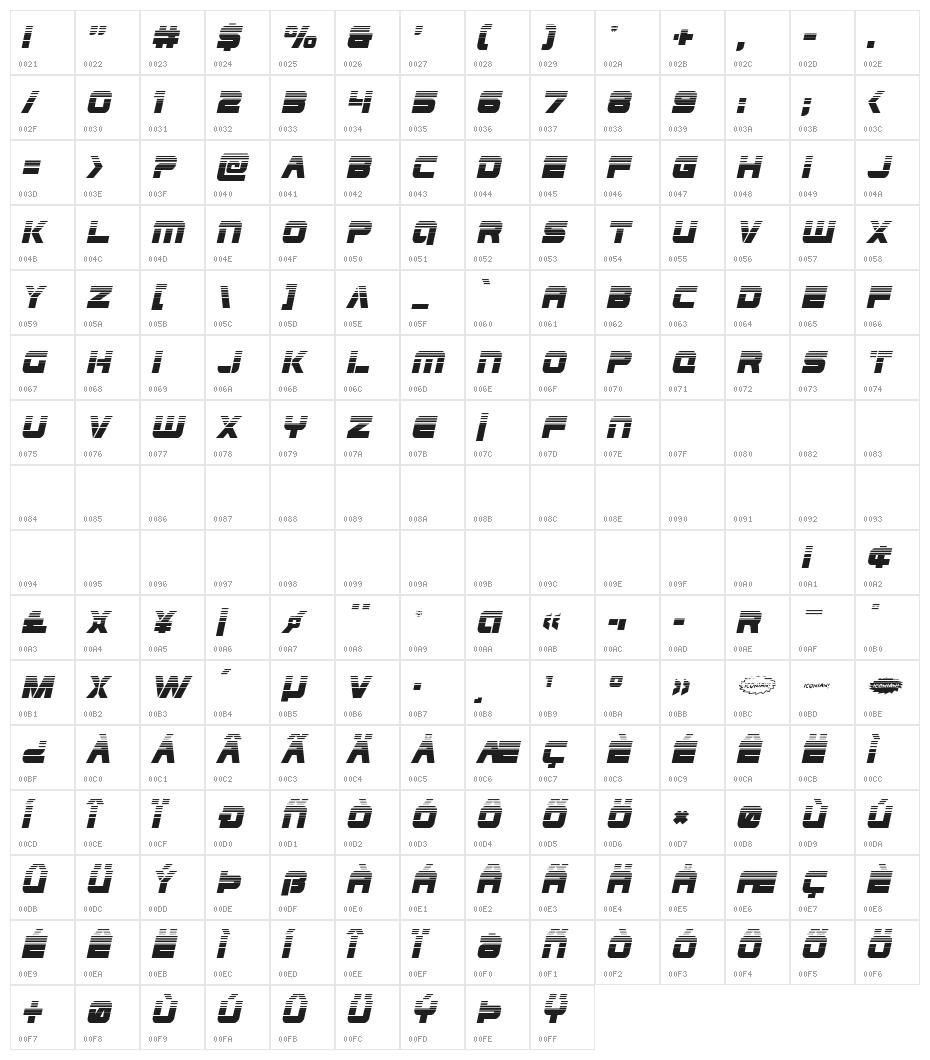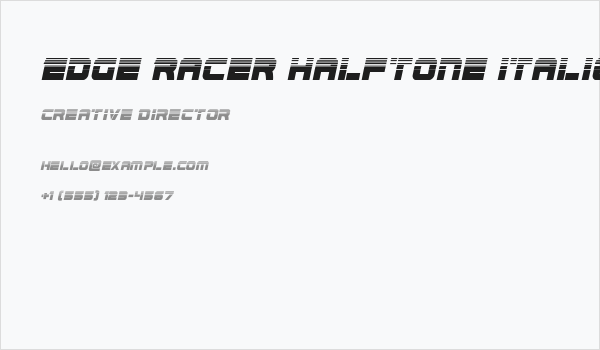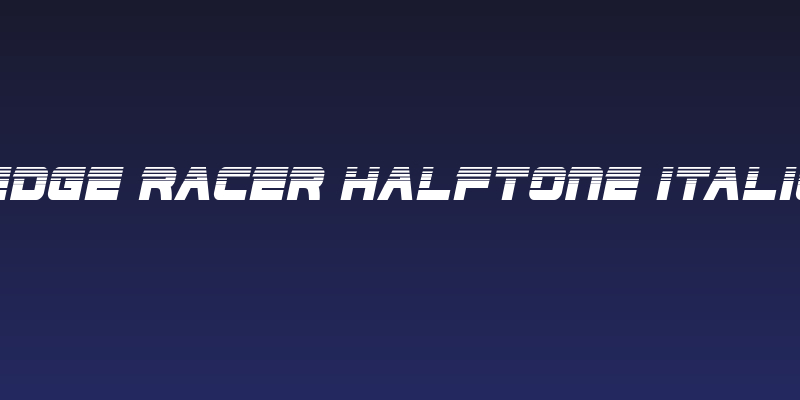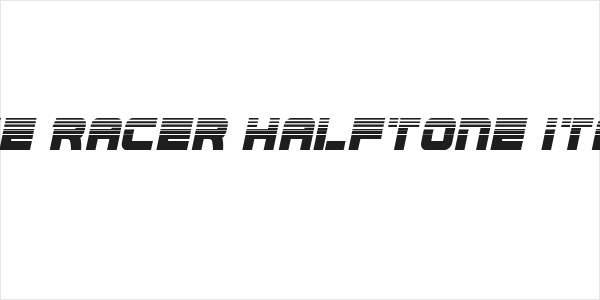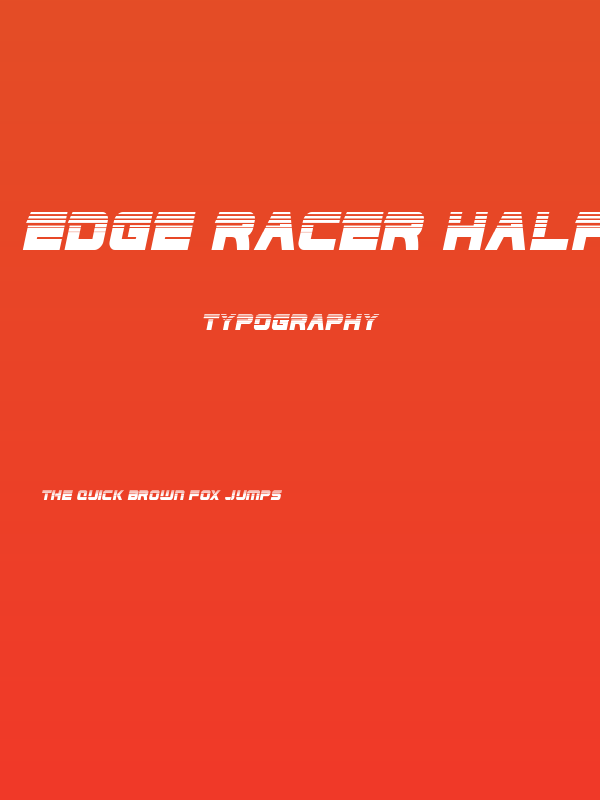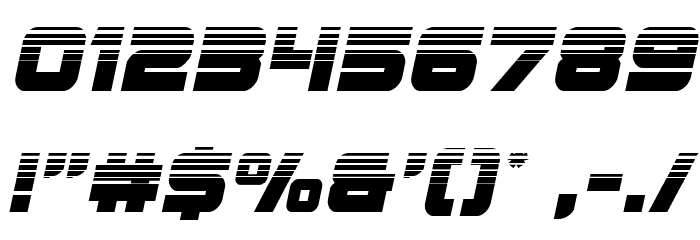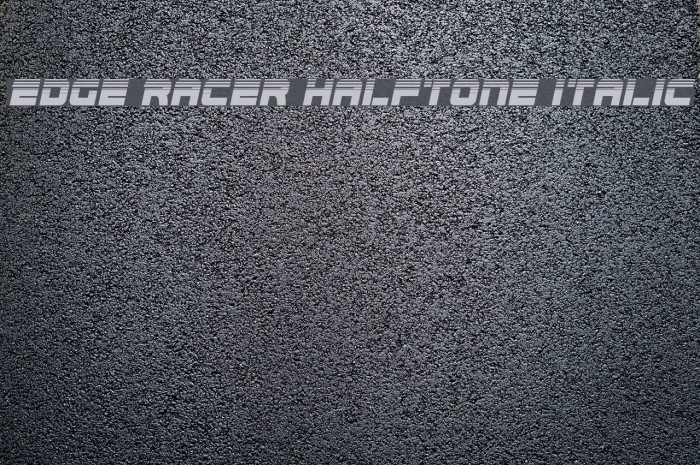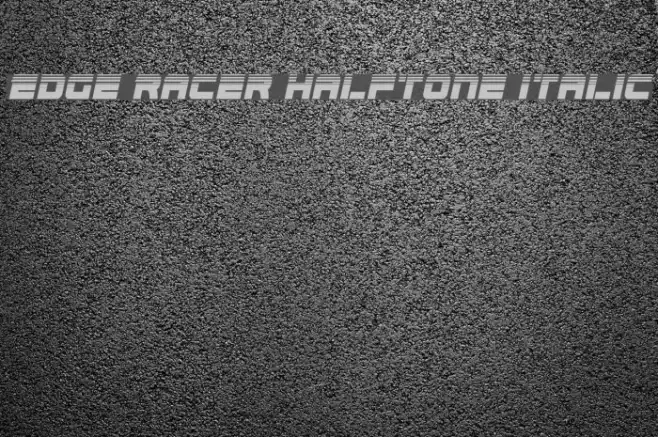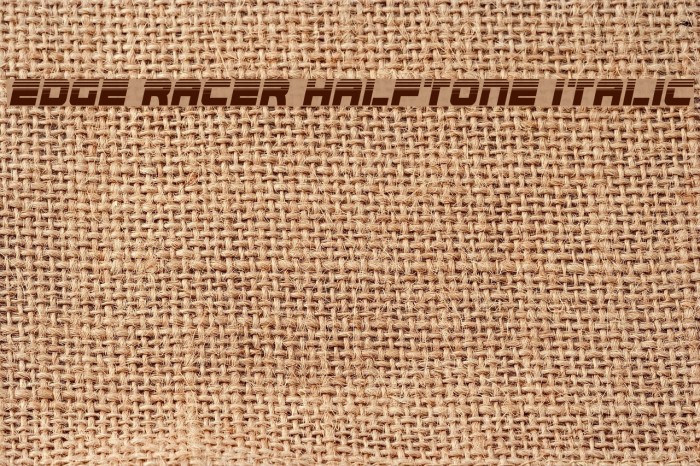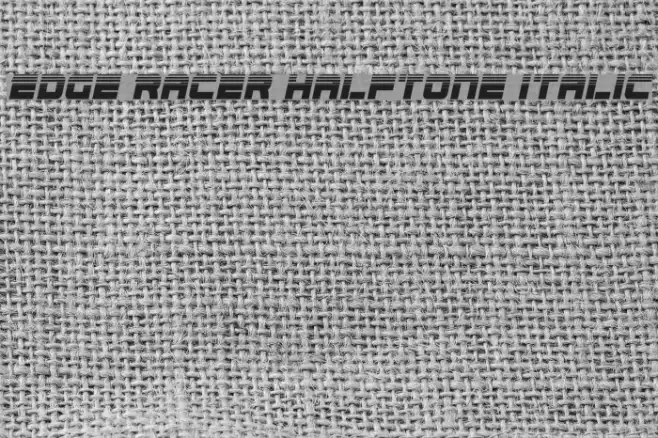
Edge Racer Halftone Italic Font
Edge Racer Halftone Italic Description
This font features a dynamic and futuristic design with a halftone effect that gives it a sense of motion and speed. The characters are italicized, adding to the forward-moving aesthetic. Each letter is composed of bold, geometric shapes with horizontal lines cutting through the upper portion, creating a unique visual texture. The font is highly stylized, making it ideal for projects that require a modern and edgy look. The numbers and special characters maintain the same design principles, ensuring consistency across all text elements.
| Proposed Projects | Ideal for racing-themed designs, video game titles, sports branding, and futuristic posters. |